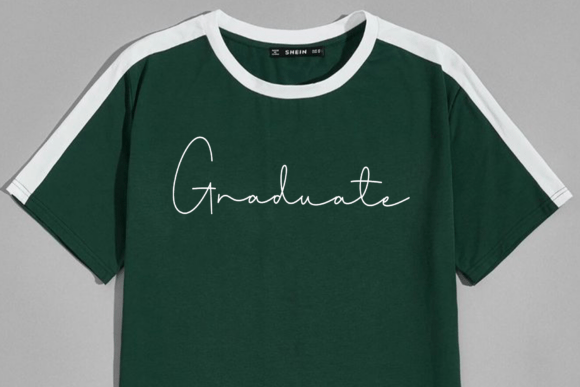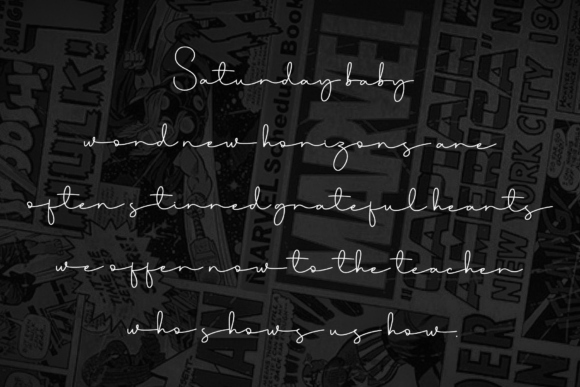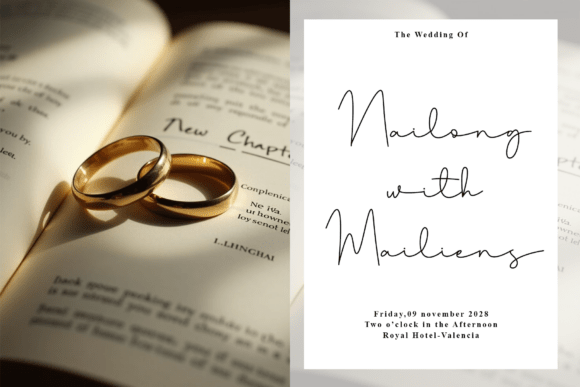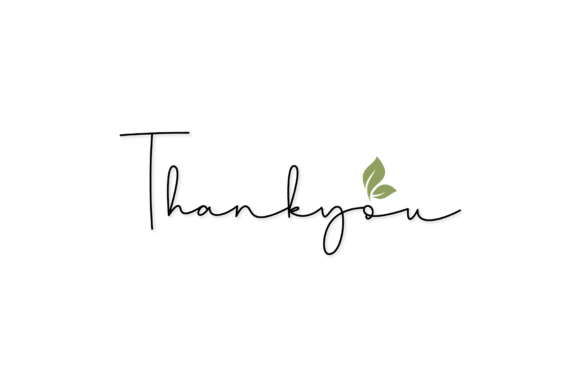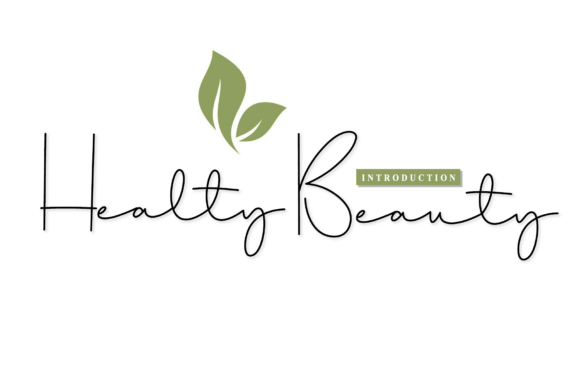
Introducing Healthy Beauty Font: Elevate Your Designs with Timeless Elegance
Are you on the hunt for a font that exudes elegance, sophistication, and a touch of whimsy? Look no further than Healthy Beauty Font, a stunning handwritten font that is sure to take your designs to the next level. In this article, we’ll dive into the world of Healthy Beauty Font, exploring its unique features, uses, and benefits for designers and crafters alike.
A Lovely and Timeless Handwritten Font
Healthy Beauty Font is a beautiful, handwritten font that boasts a timeless quality, making it perfect for a wide range of design applications. Its elegant, cursive strokes and flowing lines evoke a sense of nostalgia, while its unique and beautiful touch ensures that every letter stands out. Whether you’re creating logos, branding materials, or quotes, Healthy Beauty Font is the ideal choice for adding a touch of sophistication and style.
Unique Features of Healthy Beauty Font
So, what sets Healthy Beauty Font apart from other fonts? Here are just a few of its unique features:
- Handwritten with love: Each letter has been carefully crafted by hand, giving the font a personal and human touch.
- Unique and beautiful touch: Every letter has its own distinct character, making your designs truly one-of-a-kind.
- Elegant and sophisticated: Healthy Beauty Font exudes elegance and sophistication, making it perfect for high-end branding and designs.
- Timeless quality: This font won’t go out of style anytime soon, ensuring that your designs remain relevant for years to come.
Uses for Healthy Beauty Font
Healthy Beauty Font is incredibly versatile, making it suitable for a wide range of design applications, including:
- Logo design: Create eye-catching logos that stand out from the crowd.
- Branding: Elevate your brand with a sophisticated and elegant font.
- Quotes and typography: Add a touch of whimsy and elegance to your quotes and typography.
- Stationery and invitations: Create beautiful stationery and invitations that make a lasting impression.
Healthy Beauty Font offers a range of benefits for designers and crafters, including:
- High-quality design: Enjoy a high-quality font that is perfect for professional designs.
- Time-saving: With Healthy Beauty Font, you can create stunning designs in no time.
- Inspiration: This font is sure to inspire your creativity and take your designs to new heights.